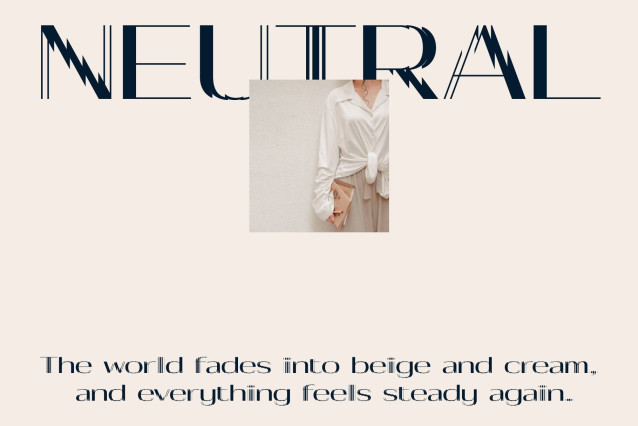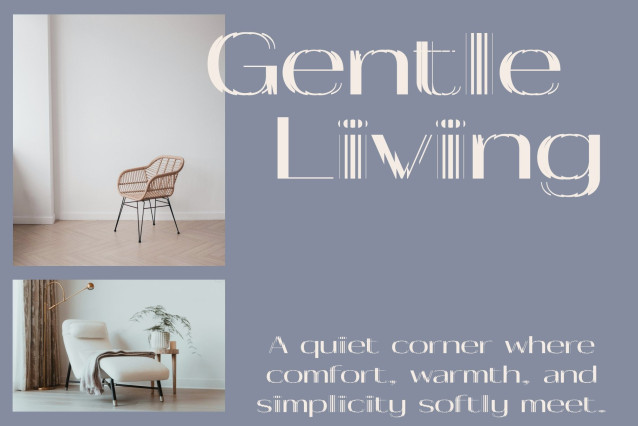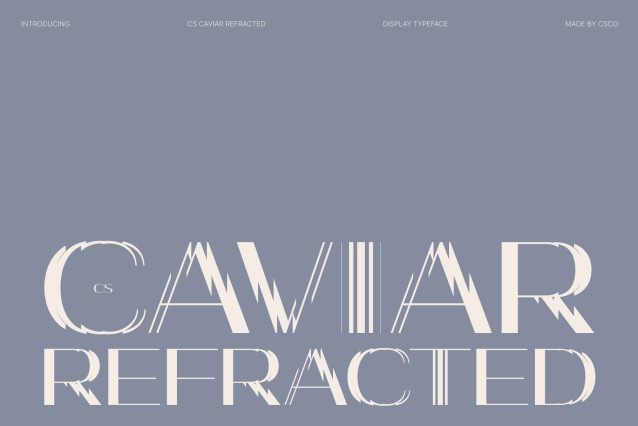
CS Caviar Refracted – Modern Sans Serif Display Font: Where Elegant Minimalism Meets Futuristic Distortion
Fragmented Geometric Forms with Clean Sophistication
This is a modern sans serif display font designed with striking refracted effects inspired by glitch-like light refractions. Its characters appear fragmented, sliced, and geometrically cut, creating a futuristic visual identity while maintaining a clean and elegant appearance. The balanced structure gives the font a refined yet experimental personality, perfect for contemporary creative design.
Futuristic Aesthetic with Elegant Modern Style
This font delivers a typographic style that feels sleek, stylish, and technologically inspired. The fragmented details evoke digital reflections and futuristic motion while preserving a polished and luxurious atmosphere, making the font ideal for sophisticated visual identities.